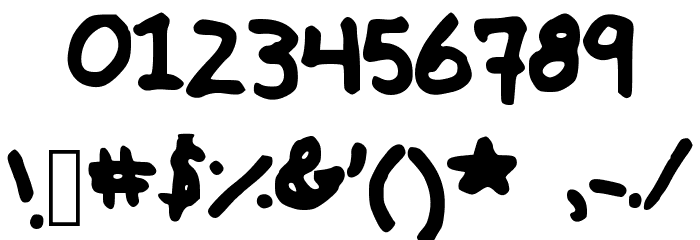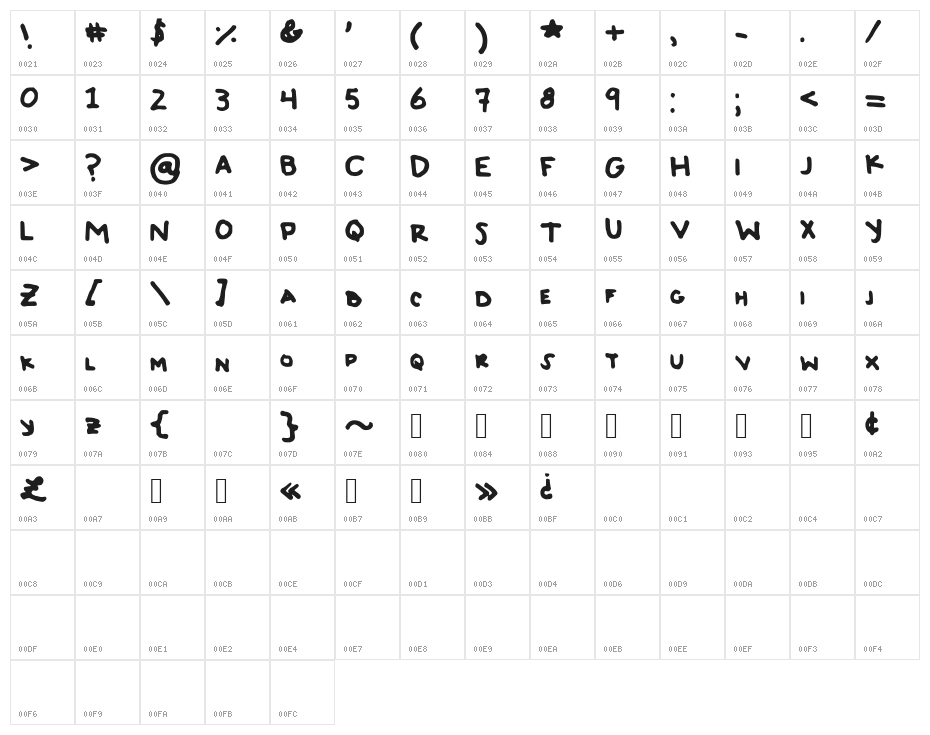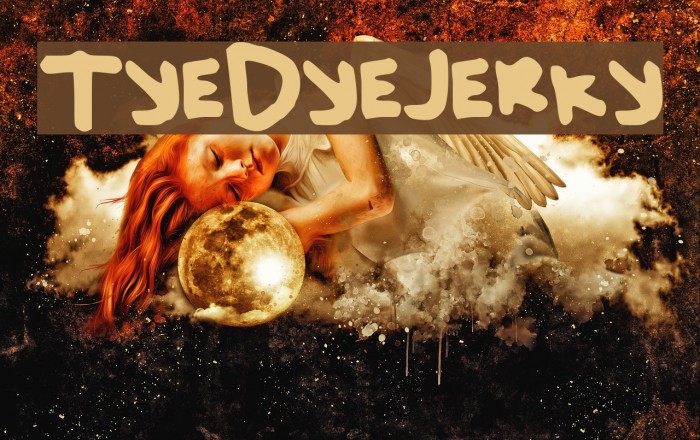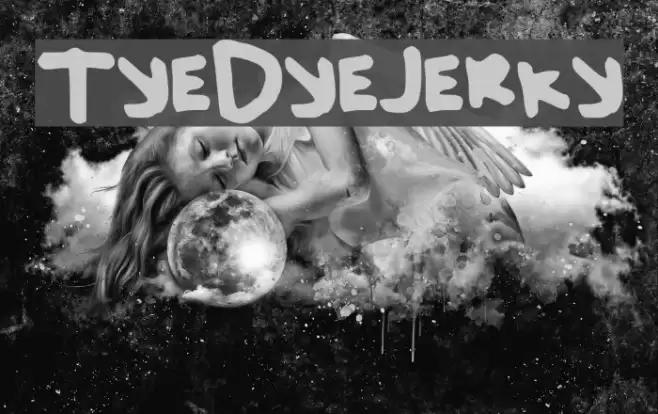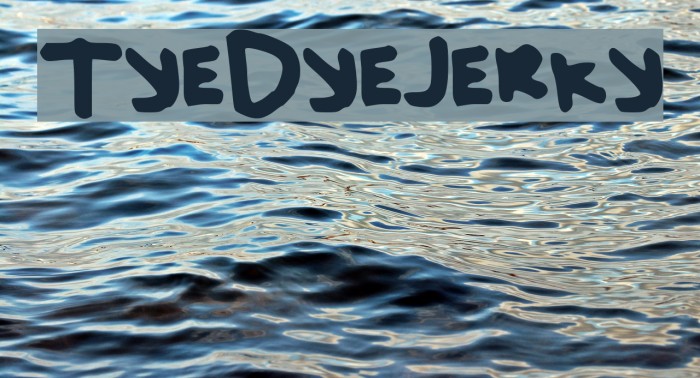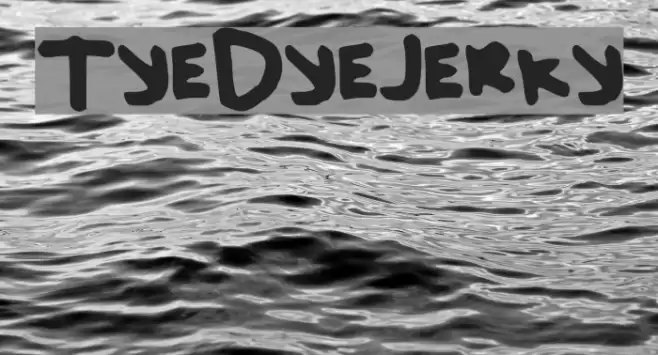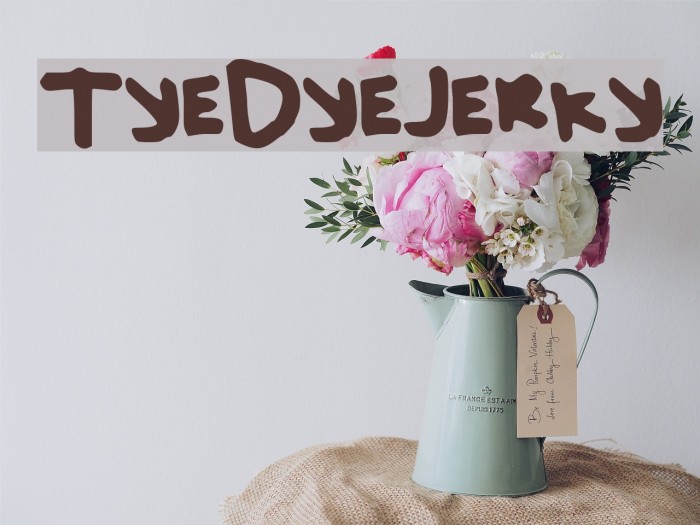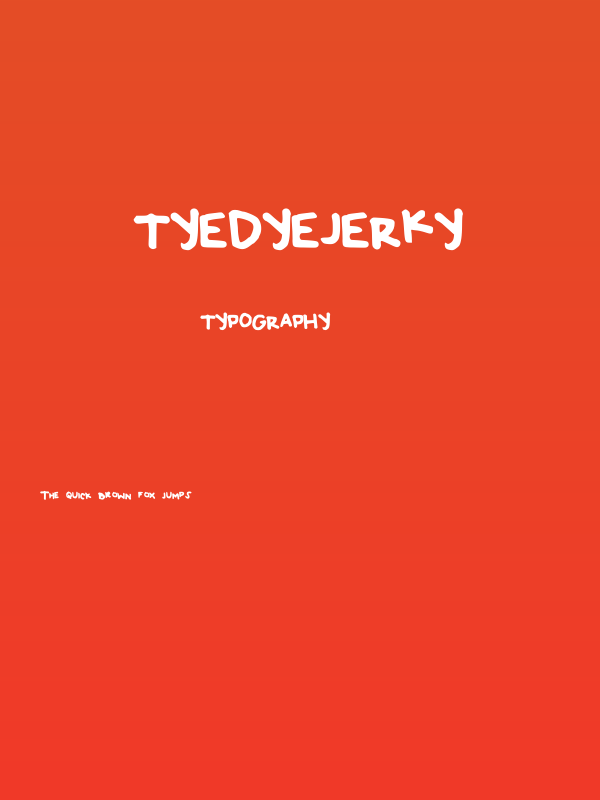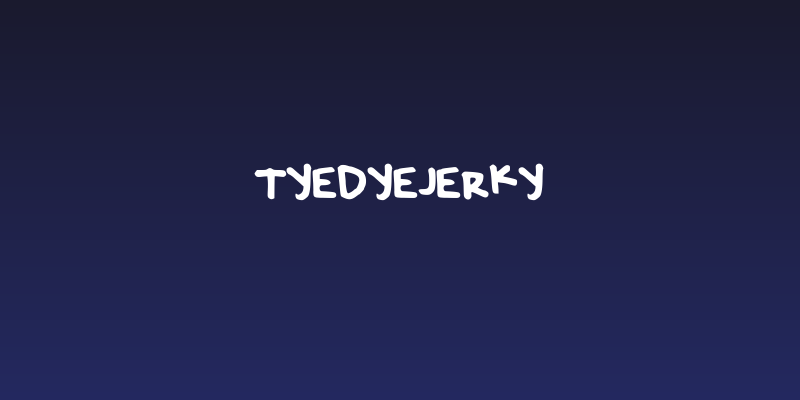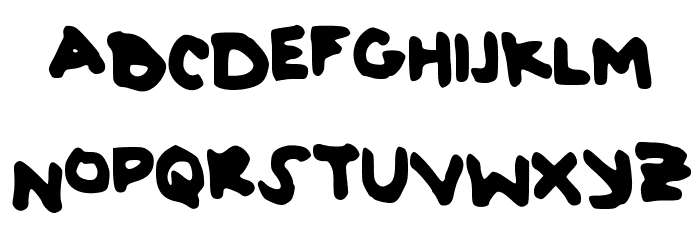
TyeDyeJerky Font
TyeDyeJerky Description
This font features a bold and playful style with a hand-drawn appearance. The characters are thick and rounded, giving them a friendly and approachable look. The letters have an irregular, slightly wavy baseline, adding to the casual and informal feel. The strokes are consistent in thickness, providing a uniform appearance across all characters. The font includes both uppercase and lowercase letters, numerals, and a variety of special characters. Its unique style makes it suitable for creative and fun projects, where a touch of personality is desired.